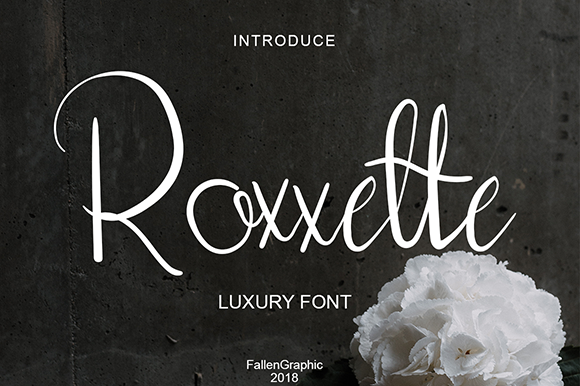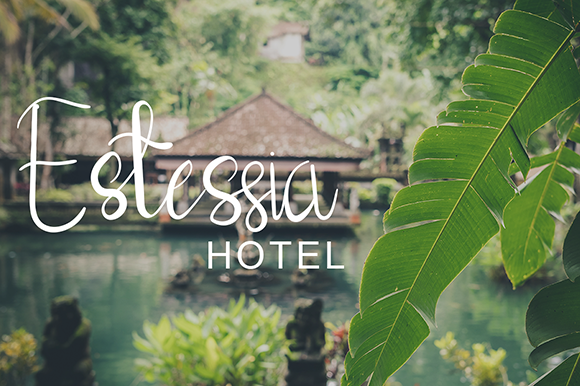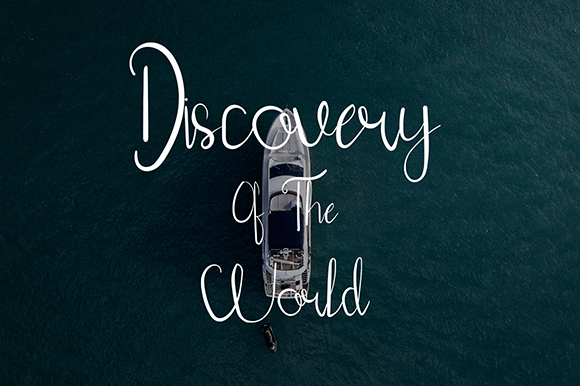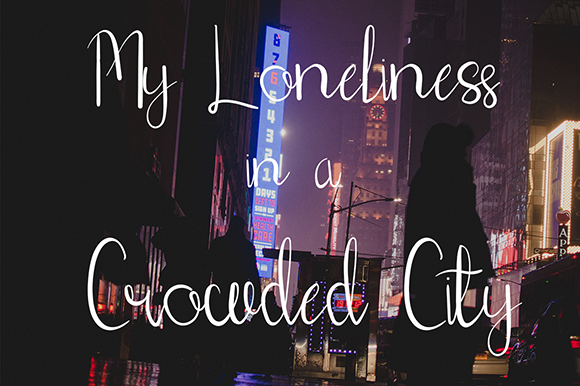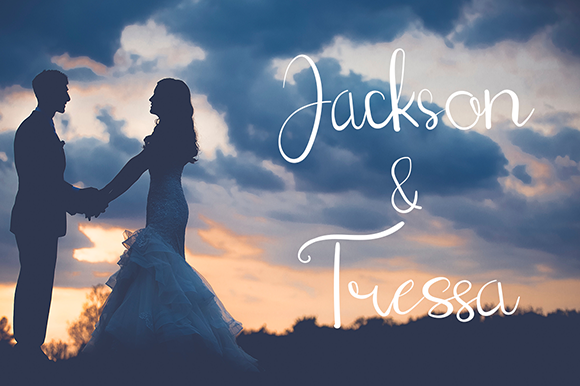
Roxxette Font
About Roxxette Font
The Roxxette is a luxury script font. It’s a great typeface for photographer signatures or logos that want to emulate a signature. It also works great for titles, postcards, packaging, labels, apparel, prints, quotes etc.